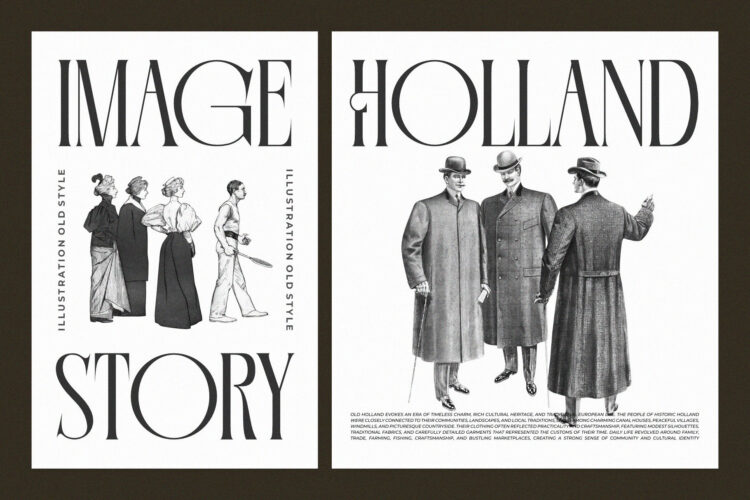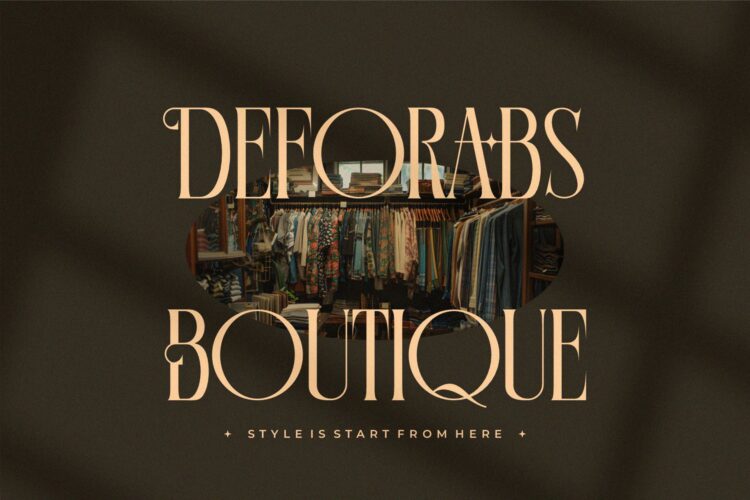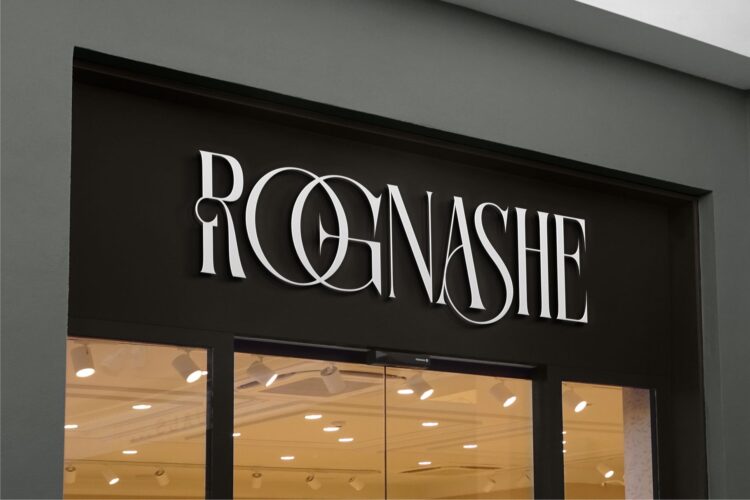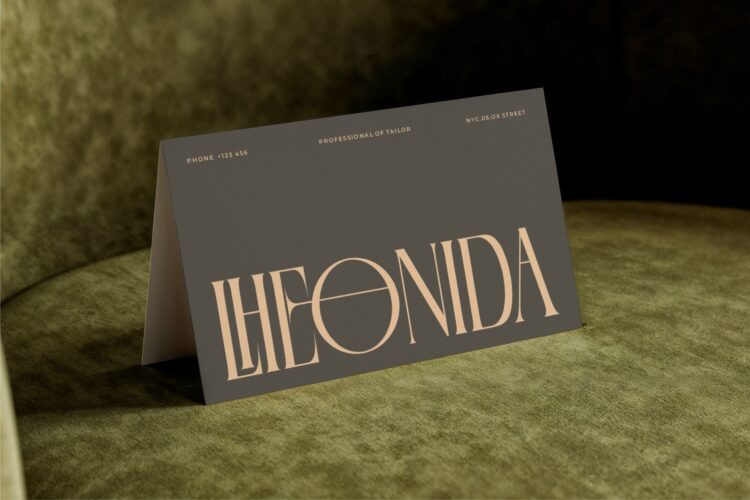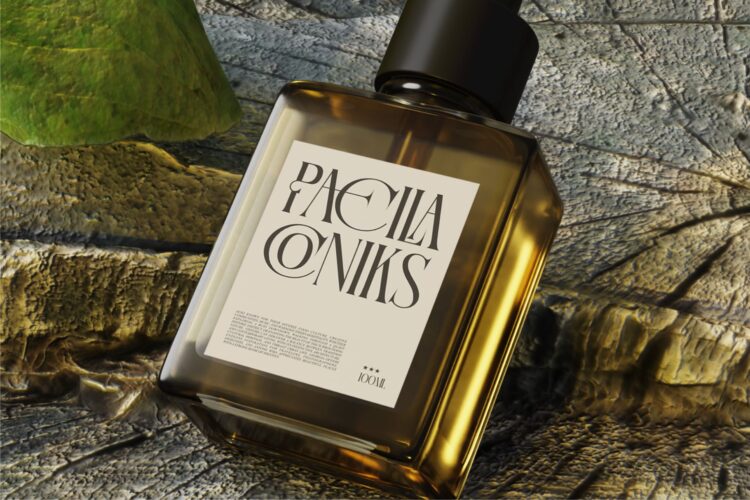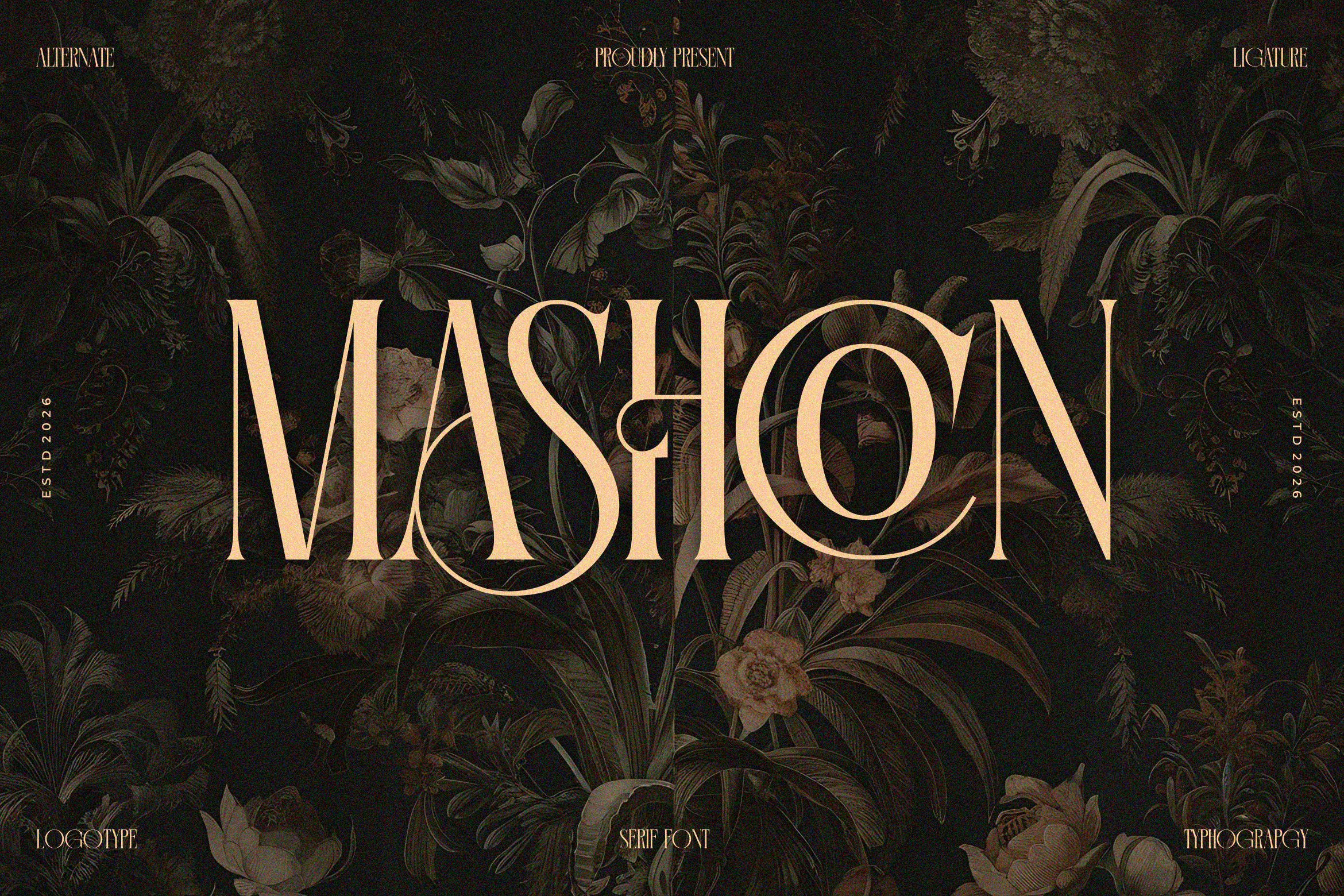
Mashcon
Mashcon is a modern and stylish serif font that blends elegance, creativity, and timeless beauty into one sophisticated typeface. With its refined curves, high-contrast strokes, and unique ligature details, Mashcon is the perfect choice for projects that demand a luxurious and professional typographic style.
Inspired by editorial design and high-fashion branding, Mashcon stands out as a versatile serif font that works beautifully for both print and digital media. Whether you’re creating a logo, a magazine headline, a wedding invitation, or a product package, Cresinta delivers a bold yet graceful look that elevates your design
Mashcon || Stylish Serif Font